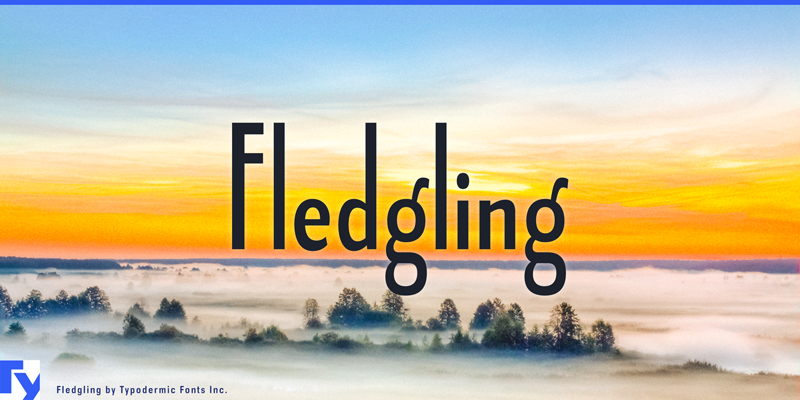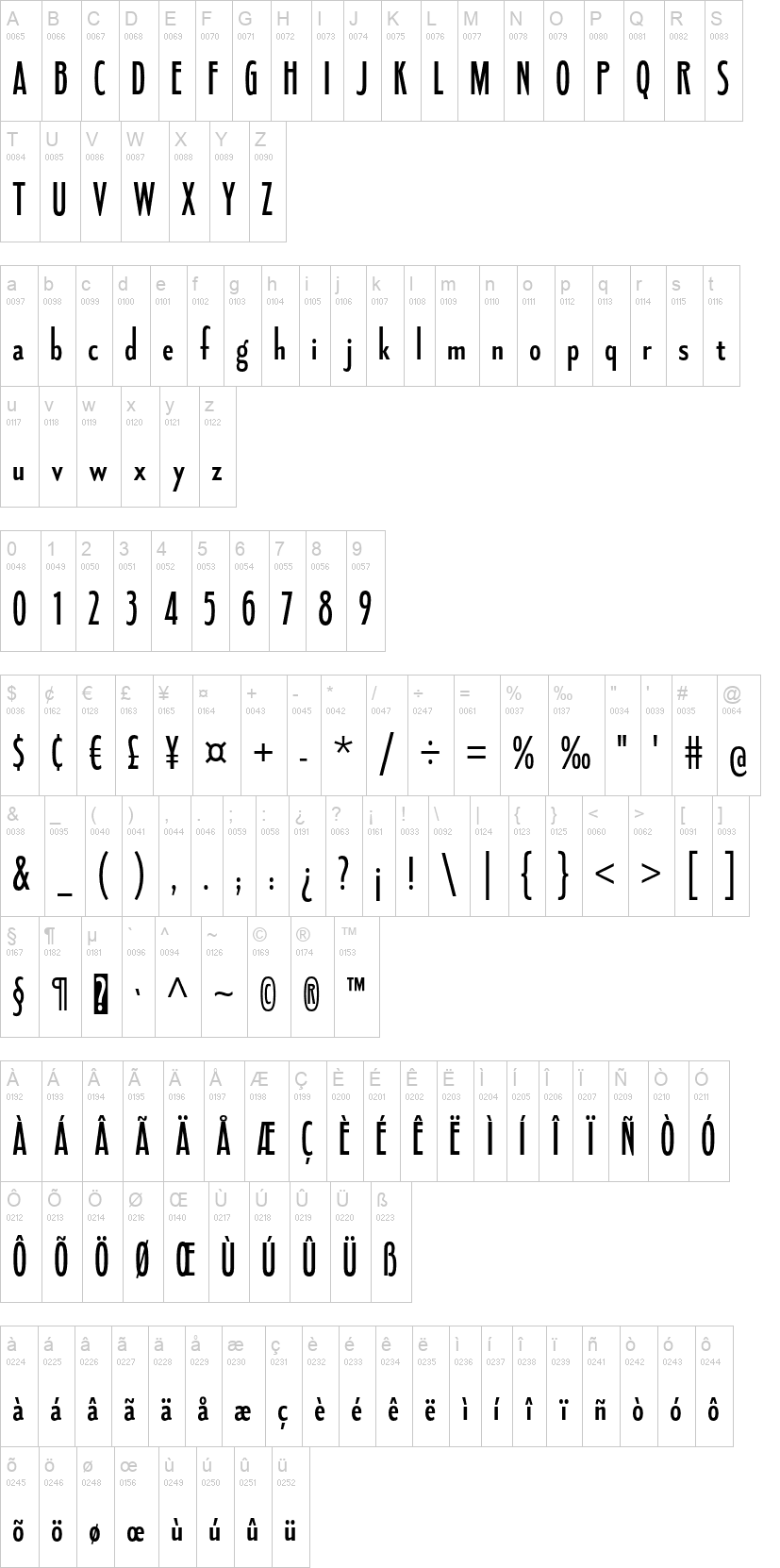
Note of the authorFledgling is a sans-serif typeface with a high waist and a low x-height. Its sophisticated contours and delicate curves will give your message a classy, one-of-a-kind voice. Numeric ordinals, fractions, and old-style numerals are among its OpenType capabilities. Fledgling comes in eight weights and obliques. Most Latin-based European, Vietnamese, Greek, and most Cyrillic-based writing systems are supported, including the following languages. Afaan Oromo, Afar, Afrikaans, Albanian, Alsatian, Aromanian, Aymara, Azerbaijani, Bashkir, Bashkir (Latin), Basque, Belarusian, Belarusian (Latin), Bemba, Bikol, Bosnian, Breton, Bulgarian, Buryat, Cape Verdean, Creole, Catalan, Cebuano, Chamorro, Chavacano, Chichewa, Crimean Tatar (Latin), Croatian, Czech, Danish, Dawan, Dholuo, Dungan, Dutch, English, Estonian, Faroese, Fijian, Filipino, Finnish, French, Frisian, Friulian, Gagauz (Latin), Galician, Ganda, Genoese, German, Gikuyu, Greenlandic, Guadeloupean Creole, Haitian Creole, Hawaiian, Hiligaynon, Hungarian, Icelandic, Igbo, Ilocano, Indonesian, Irish, Italian, Jamaican, Kaingang, Khalkha, Kalmyk, Kanuri, Kaqchikel, Karakalpak (Latin), Kashubian, Kazakh, Kikongo, Kinyarwanda, Kirundi, Komi-Permyak, Kurdish, Kurdish (Latin), Kyrgyz, Latvian, Lithuanian, Lombard, Low Saxon, Luxembourgish, Maasai, Macedonian, Makhuwa, Malay, Maltese, Māori, Moldovan, Montenegrin, Nahuatl, Ndebele, Neapolitan, Norwegian, Novial, Occitan, Ossetian (Latin), Papiamento, Piedmontese, Polish, Portuguese, Quechua, Rarotongan, Romanian, Romansh, Russian, Rusyn, Sami, Sango, Saramaccan, Sardinian, Scottish Gaelic, Serbian, Serbian (Latin), Shona, Sicilian, Silesian, Slovak, Slovenian, Somali, Sorbian, Sotho, Spanish, Swahili, Swazi, Swedish, Tagalog, Tahitian, Tajik, Tatar, Tetum, Tongan, Tshiluba, Tsonga, Tswana, Tumbuka, Turkish, Turkmen (Latin), Tuvaluan, Ukrainian, Uzbek, Uzbek (Latin), Venda, Venetian, Vepsian, Vietnamese, Võro, Walloon, Waray-Waray, Wayuu, Welsh, Wolof, Xavante, Xhosa, Yapese, Zapotec, Zarma, Zazaki, Zulu and Zuni.